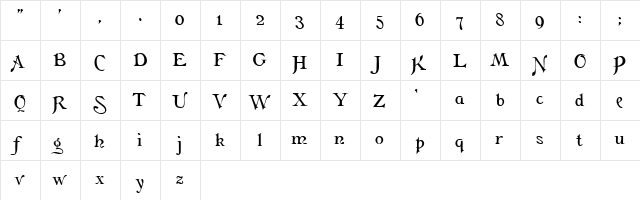
Flaubert!" Regular
Design Context for Flaubert!" Typeface
Flaubert!" is a composed and adaptable typeface that performs quietly and consistently across a wide range of design contexts.